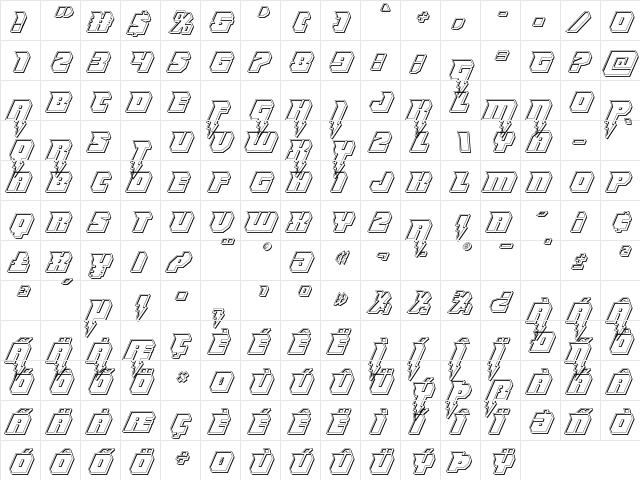
Thunder Titan Engraved Regular
Design Context for Thunder Titan Engraved Typeface
Thunder Titan Engraved brings ornamental detail and strong personality to headlines and identities, where visual impact matters more than quiet functionality.
Font Pairing: Pair with a clean neutral sans-serif for body copy to let Thunder Titan Engraved's character lead without overwhelming the composition.
Pro Tip: Treat Thunder Titan Engraved as the centrepiece of your typographic hierarchy. One strong heading set in a decorative face can carry an entire layout.